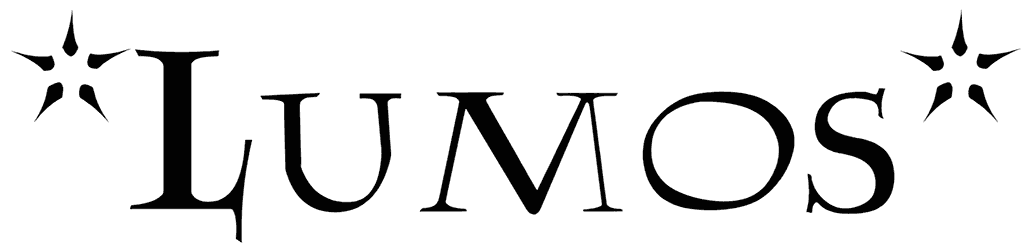
Lumos Font
There are situations, like on a flyer or a poster for a comedic show, where you need a scary tone, and that is where you can use an evil font. A serif font like Lumos can give your artwork a creepy look with distinctive letters in different shapes and sizes.